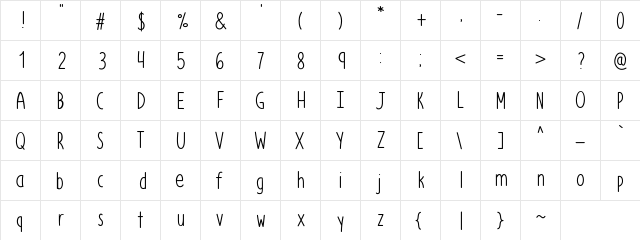
Azurite Medium Font Preview
Azurite Medium
Azurite Medium Font Details
Design Context for Azurite Typeface
Azurite offers clean, dependable letterforms without strong stylistic allegiance, making it a practical choice for designers who need flexibility.
Pro Tip: Pair Azurite with a font of contrasting weight or personality to build a more expressive typographic hierarchy.